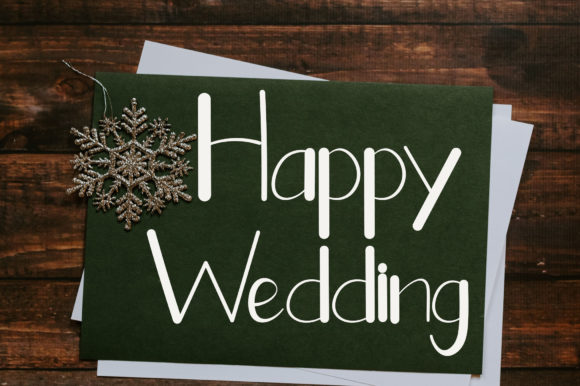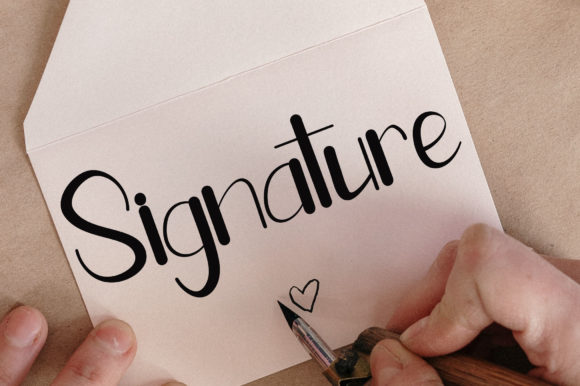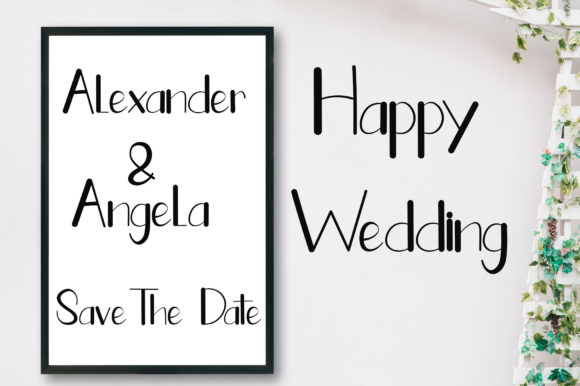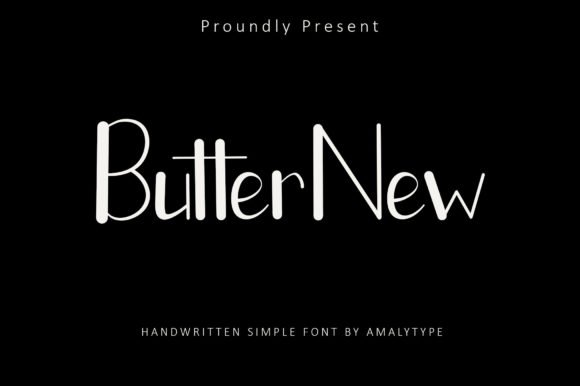
Introduction to Butter New Font
Butter New is a simple, well balanced and beautiful script font.
Its sweet and full of life style makes this font a wonderful choice for brightening up your designs .